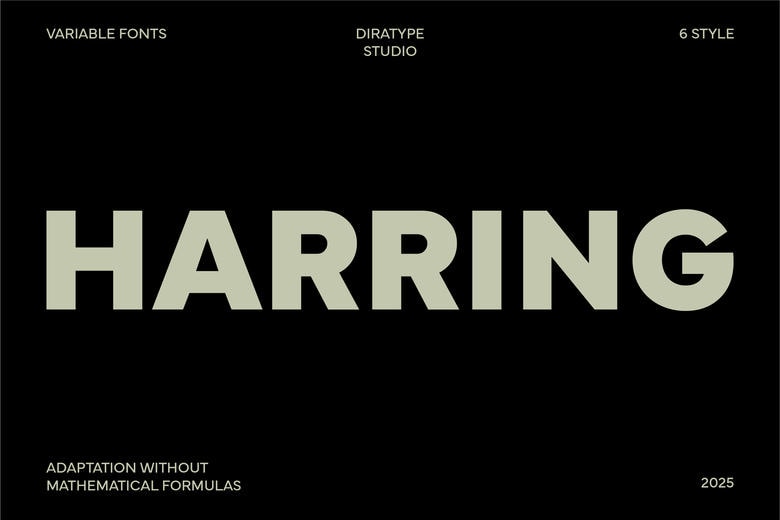
Harring Font Family
Introducing Harring Family Fonts, a modern, minimalist typeface designed for clarity and versatility. Featuring clean, simple characters, this font adapts effortlessly to any project, whether you’re designing for digital platforms, print, or branding. Its smooth lines and balanced proportions make it perfect for both body text and headlines.
Whether you’re crafting elegant logos, eye-catching advertisements, or user-friendly websites, [Font Name] offers timeless style with a touch of sophistication. This versatile font ensures your message stands out with ease, making it the perfect choice for designers seeking simplicity without sacrificing impact.
Harring Sans Serif Font Family